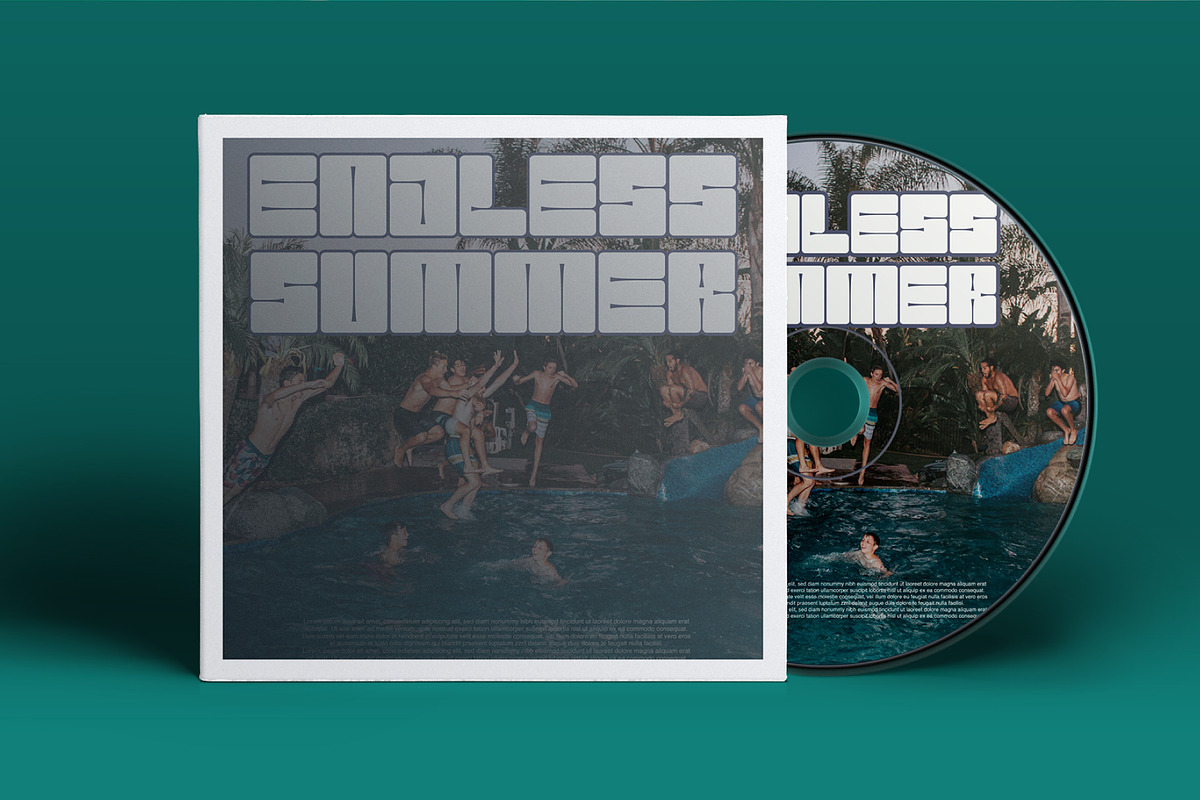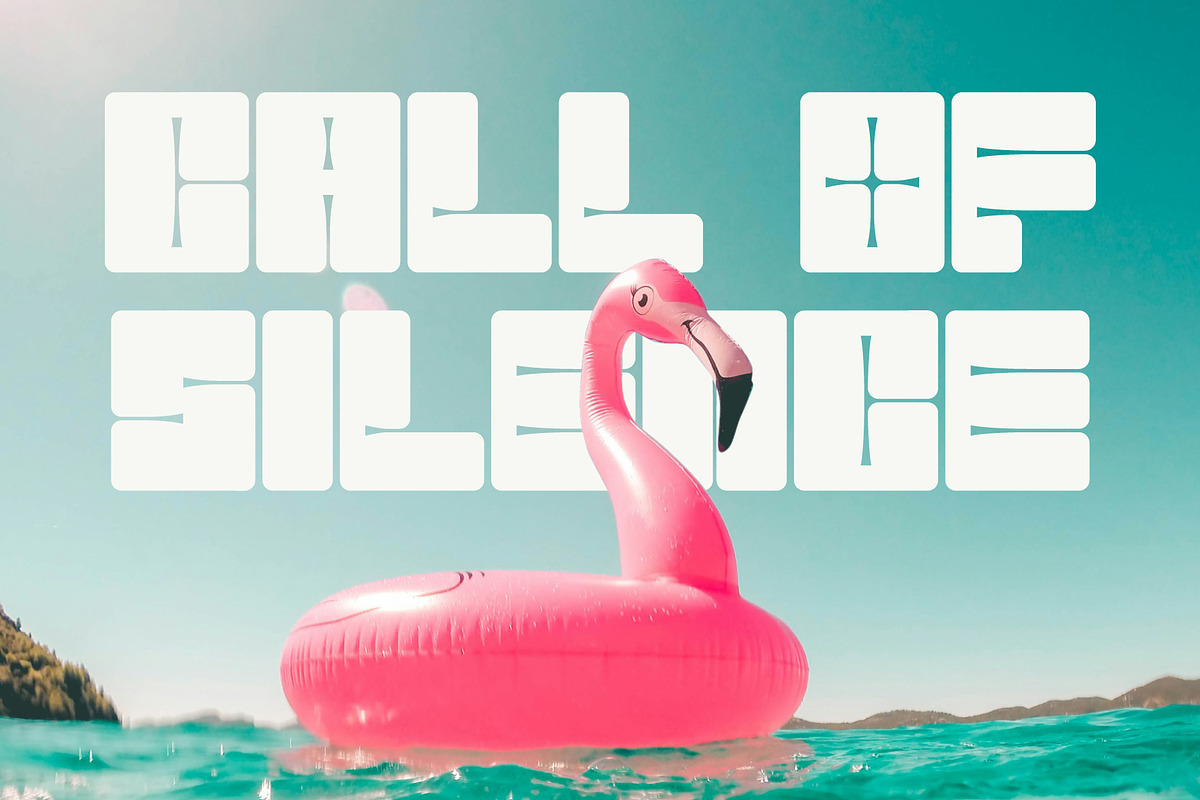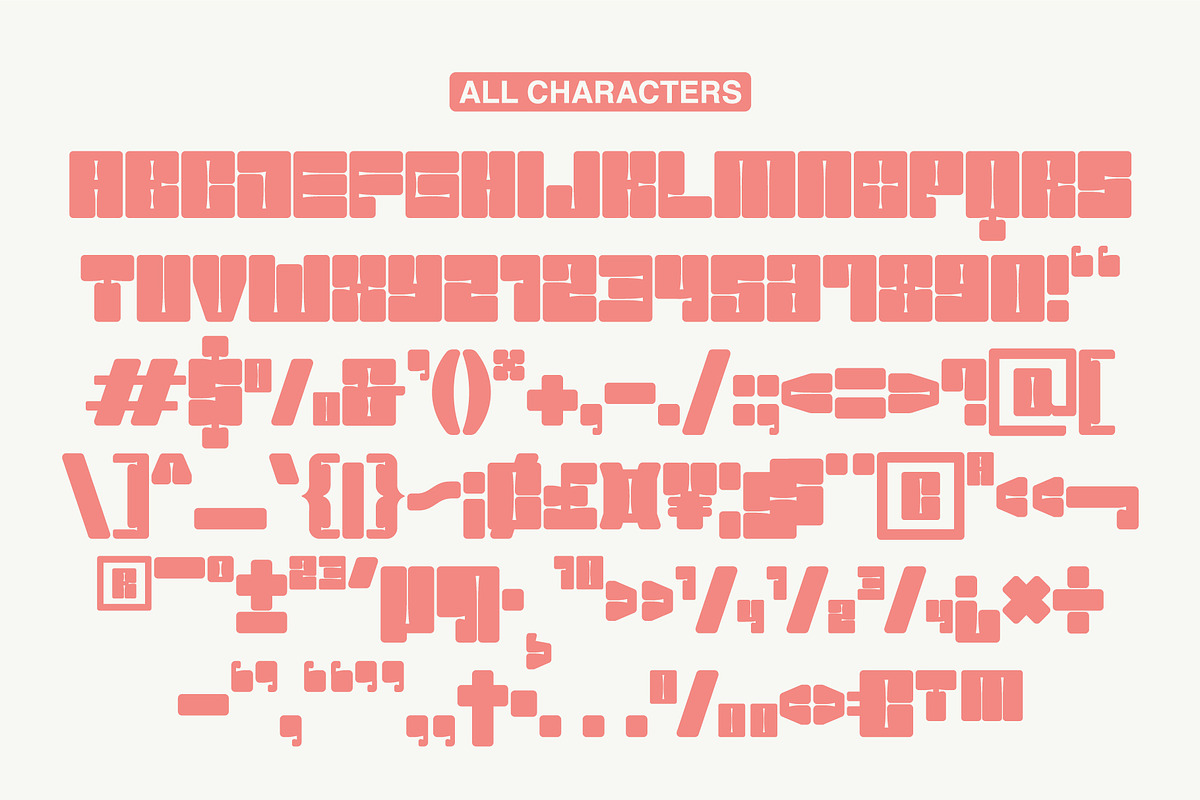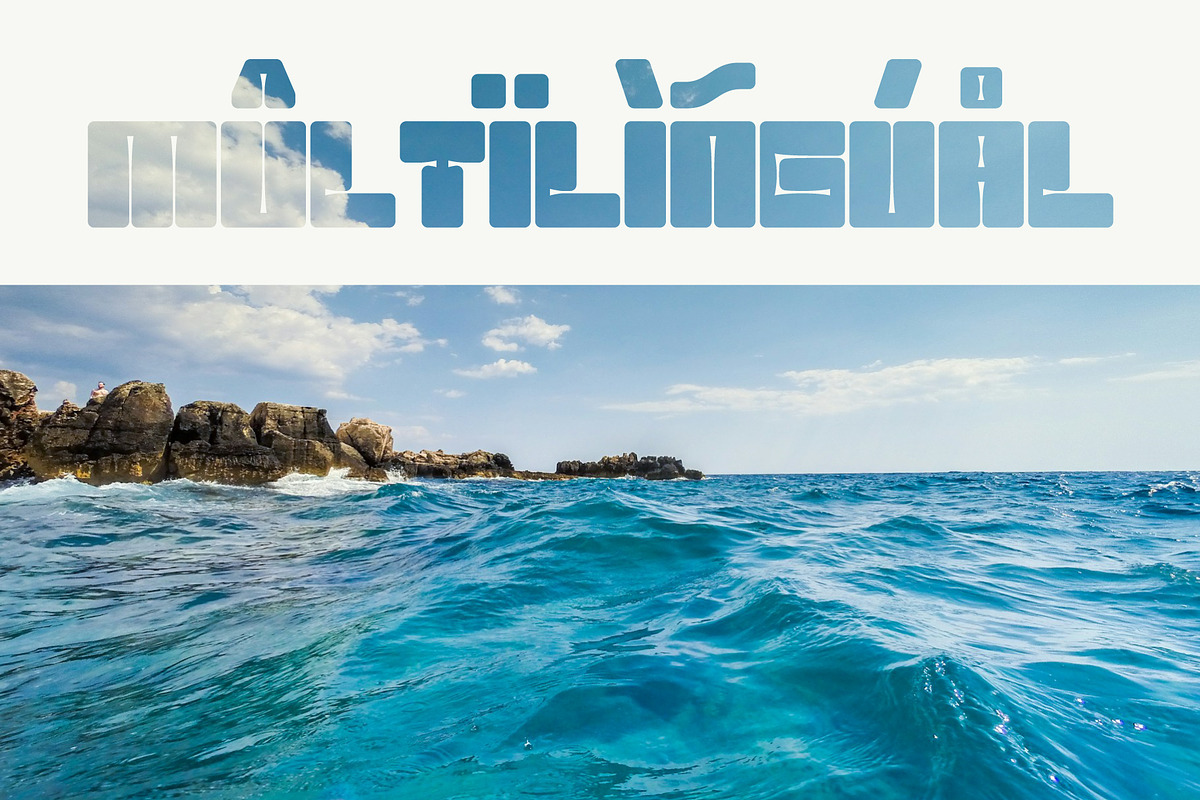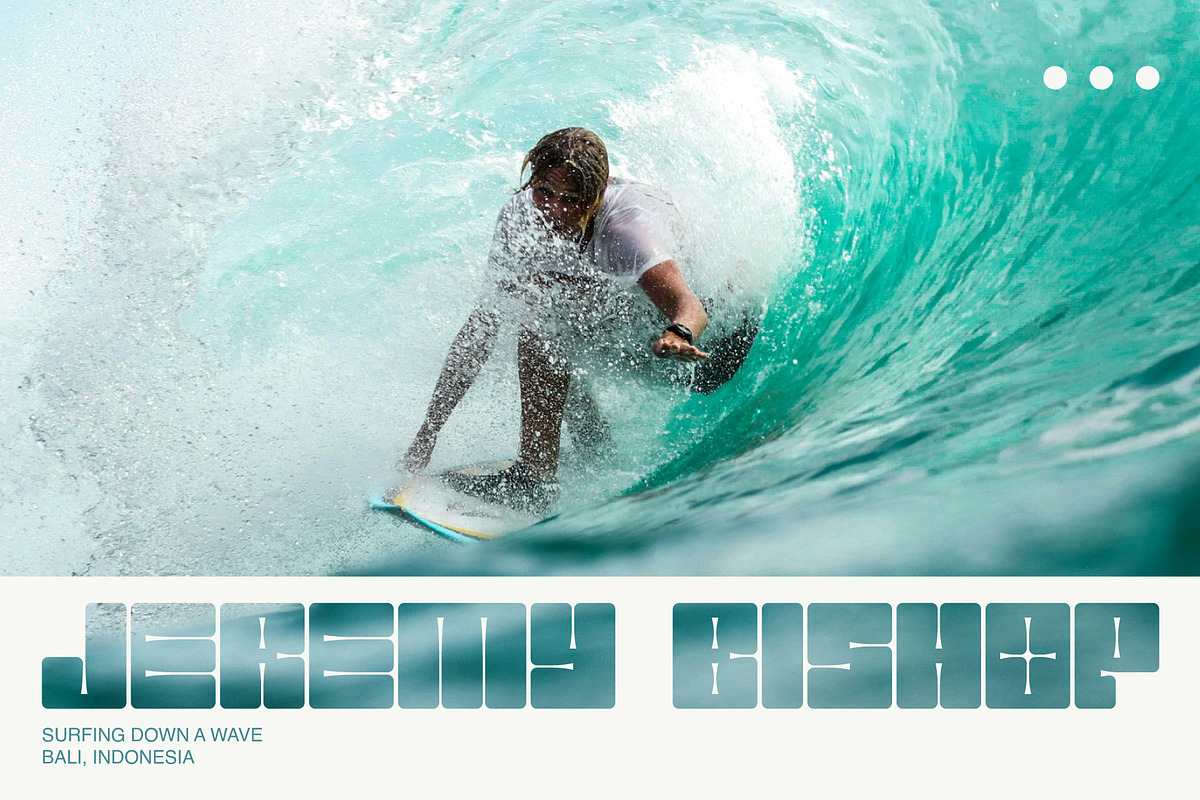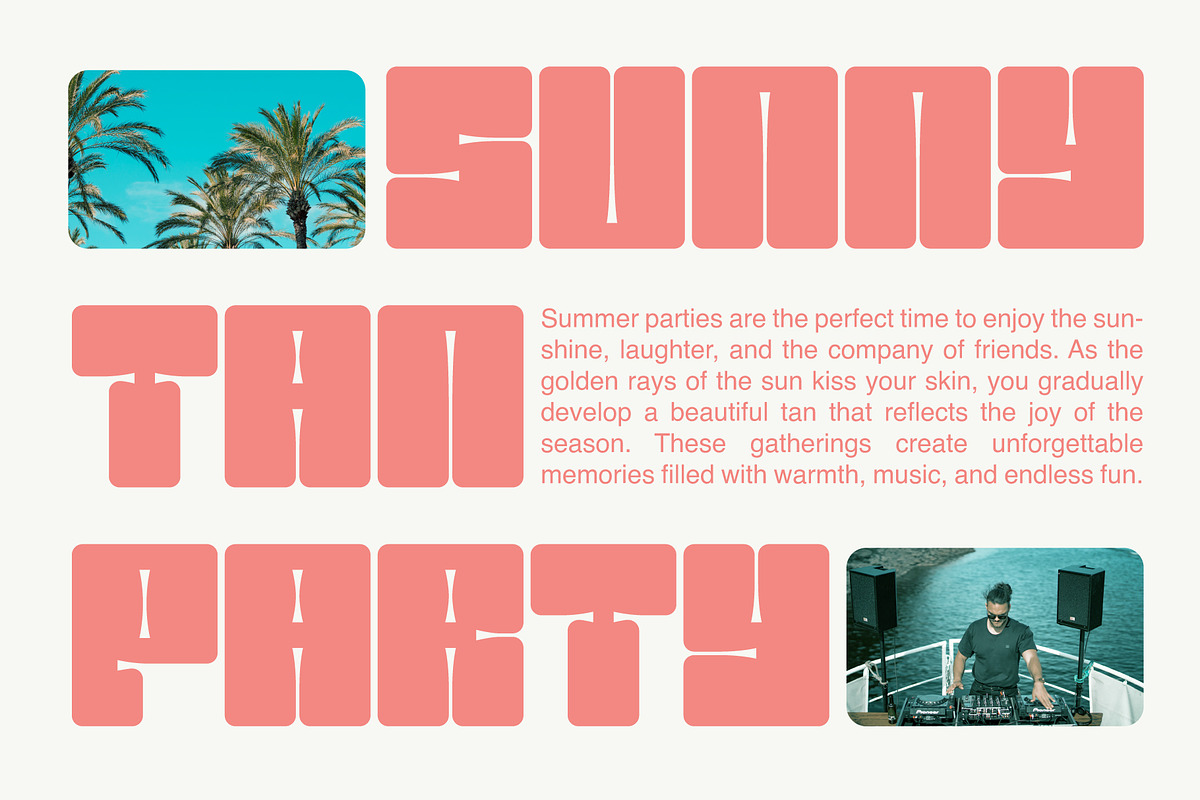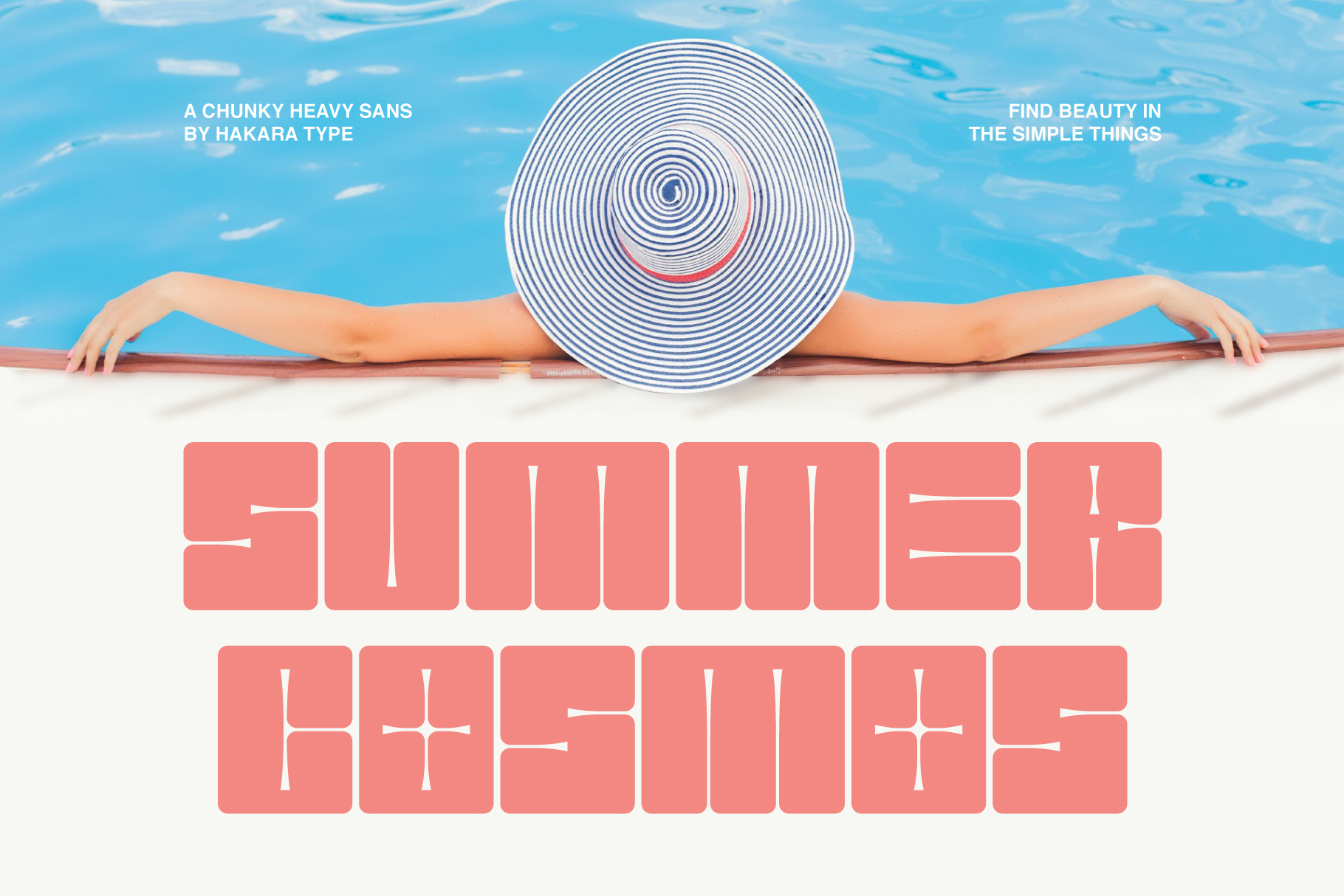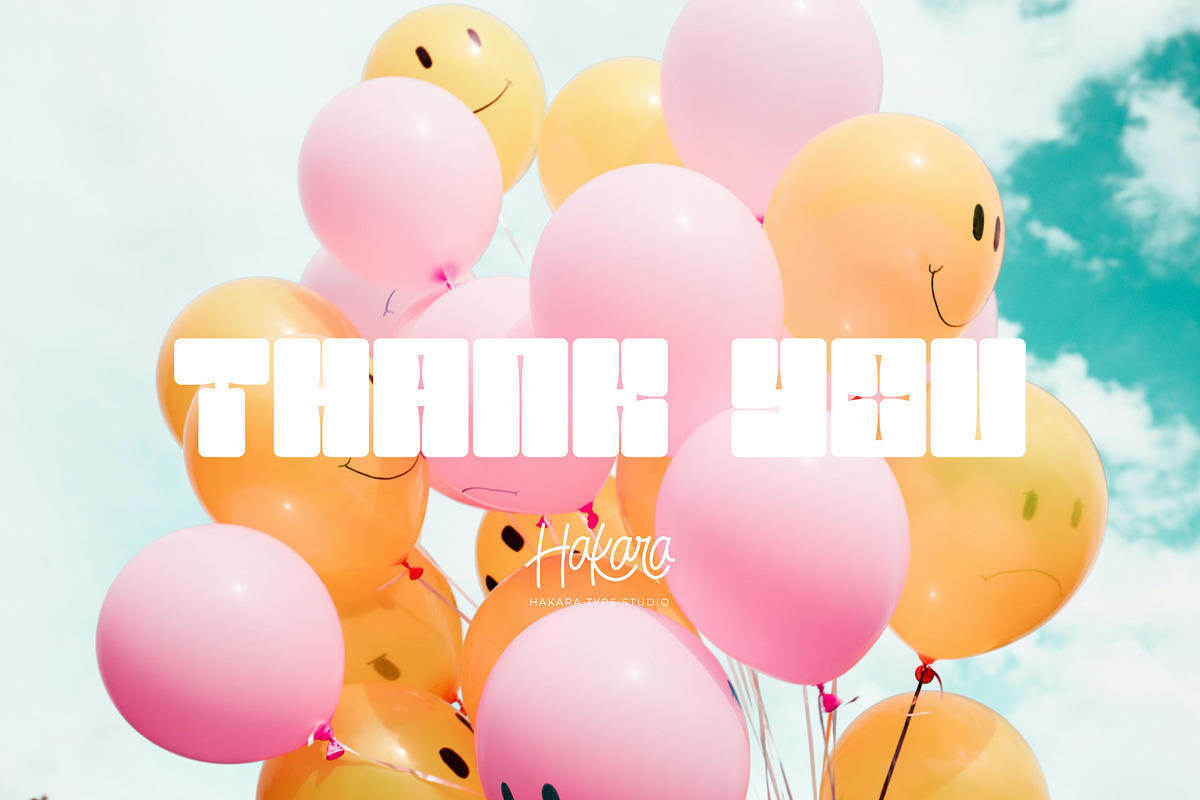
Summer Cosmos - Chunky Sans Font
Summer Cosmos is a chunky sans font with a bold retro style. Summer Cosmos is playful yet beauty, featuring soft corner and unique traps. Its large size makes it perfect for image fill effects, while still remaining readable. Give your pop culture designs a warm hug with Summer Cosmos.
Summer Cosmos comes with uppercase, lowercase, numbers, function, and included multilingual support.